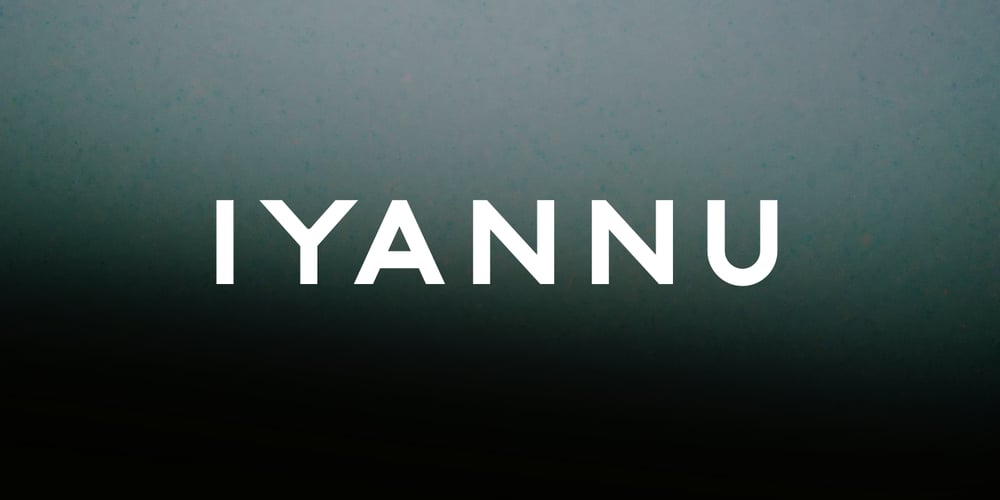
Iyannu
Iyannu font
Iyannu Font Family was designed by Soshi Naemura and published by Thirdin. Iyannu contains 4 styles and family package options. Iyannu has no meaning in its self. This font is made to be very quiet and simple yet to be unique.Iyannu is created by Japanese designer and it is designed so called “Retro Future” like cyberpunk in Tokyo. When font is made strictly with mathematic sometimes it looks unbalanced. So this font is mixing mathematics method and optical illusion of view to maintain the clear balance.